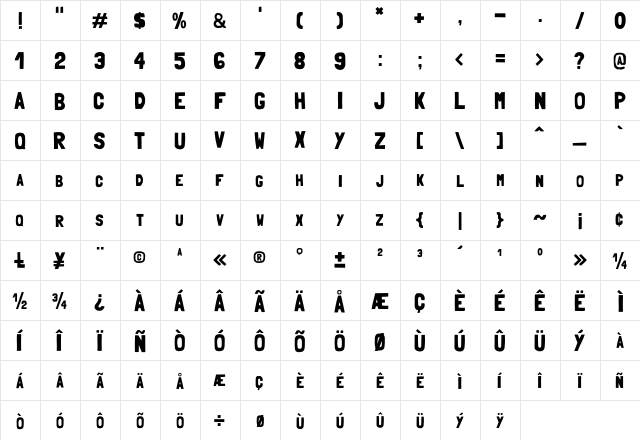
Folk solid
Design Context for Folk Typeface
Folk offers clean, dependable letterforms without strong stylistic allegiance, making it a practical choice for designers who need flexibility.
Pro Tip: Use Folk in both headline and body roles to test its range before committing to a single application.